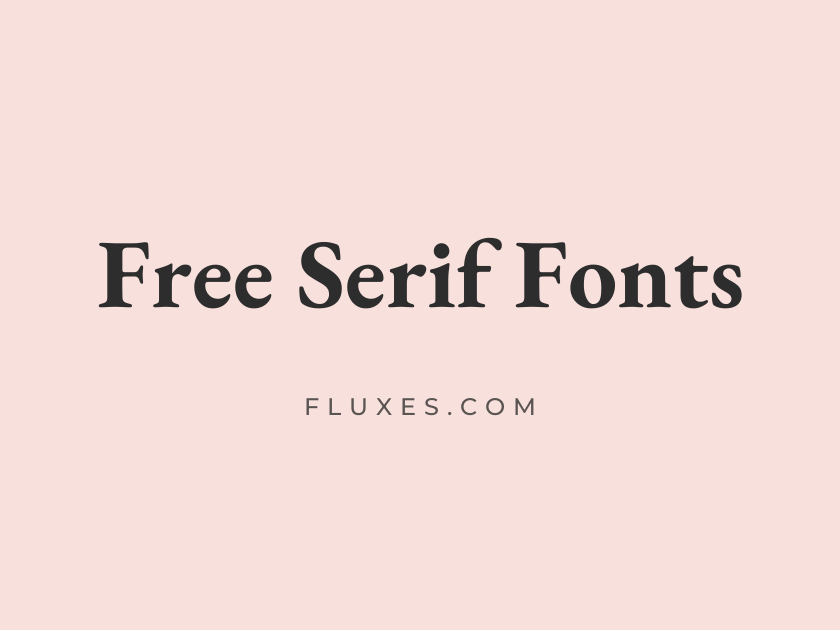
70 Best Free Serif Fonts
Serif type carries the weight of tradition, the credibility of a printed page, and, when chosen well, a distinct personality that a plain sans simply cannot deliver. Designers searching for free serif fonts often need more than a single workhorse text face; they need old-style book serifs for long-form reading, slab serifs for sturdy headlines, and a few high-contrast display faces for editorial drama. Every typeface here is free to download and use through Google Fonts, so you can pair a dependable body text serif with a striking headline serif without touching a licensing budget.
1. EB Garamond
Timeless letters set for the printed page
A faithful revival of Claude Garamond’s sixteenth-century punches, this is the font people mean when they ask for a free Garamond alternative. It reads beautifully in long paragraphs, has genuine italics rather than slanted romans, and feels equally at home in a novel or a wedding invitation.
2. Cormorant Garamond
Elegant script for refined invitations
Cormorant Garamond takes Garamond’s proportions and stretches them into something narrower, lighter, and more jewel-like. It is not a workhorse text face; it wants generous point sizes, so save it for pull quotes, titles, and anywhere delicacy matters more than density.
3. Crimson Pro
A quiet workhorse for academic writing
Modeled loosely on old-style book typefaces, Crimson Pro was built specifically for long-form reading on screen. Its wide variable weight range makes it a smart pick for editorial sites that need everything from a light byline to a bold pull quote from one family.
4. Lora
Contemporary warmth with calligraphic roots
Lora’s curves hint at pen calligraphy without ever tipping into decoration, which is why it has become a default choice for blogs and content-heavy sites. It pairs nicely with a geometric sans like Poppins for headings, keeping the body text warm while the titles stay crisp.
5. Source Serif 4
Reliable text type for editorial layouts
Adobe’s Source Serif was drawn as a companion to Source Sans, and it shows: the two share proportions and rhythm, so they slot together effortlessly in interfaces and documentation. On its own it is understated, dependable, and rarely the wrong answer for body copy.
6. Spectral
Designed for comfortable screen reading
Spectral was commissioned with screens in mind, so its x-height, spacing, and weight distribution all favor clarity on low-resolution displays. It carries a faint literary mood without asking for attention, which makes it a safe long-form choice for publishing platforms.
7. Vollkorn
Sturdy German serif for printed books
Vollkorn means “whole grain” in German, and the name fits: it is dense, textured, and built to survive small sizes and cheap paper. It has quietly become a favorite for self-published books and academic PDFs where legibility under imperfect printing conditions matters more than flair.
8. Alegreya
Expressive type inspired by literary texts
Alegreya was originally designed for long passages of literary text, and its slightly humanist, calligraphic rhythm gives paragraphs a sense of movement rather than rigidity. The companion Alegreya Sans makes it an easy family to build an entire editorial system around.
9. Bitter
Slab serif built for on-screen reading
Bitter blends slab-serif sturdiness with the comfort of a text face, making it readable at small sizes where many slabs turn muddy. It works well set dense, in captions, tables, or long-form articles that need a slightly firmer voice than a standard book serif.
10. PT Serif
Balanced letterforms for print and web
Commissioned for a Russian public type project, PT Serif was engineered for maximum legibility across print and digital, and it delivers on that brief without much fuss. It is a safe, slightly conservative choice when a project needs a serif that will not distract from the content.
11. Merriweather
Confident headlines with printed authority
Merriweather was specifically designed to be pleasant to read on glowing screens, with sturdy strokes and a slightly condensed width that holds up well in narrow columns. Its bold weight makes an assertive headline face, while the regular cut carries long articles without fatigue.
12. Noto Serif
Global coverage for multilingual publishing
Part of Google’s Noto project, this serif exists to cover as many of the world’s scripts as possible while staying visually consistent between them. Choose it for multilingual sites where a matching serif needs to work in Latin, Cyrillic, Greek, and beyond.
13. Libre Baskerville
Classic Baskerville optimized for the web
Libre Baskerville adjusts the historic Baskerville proportions with a taller x-height and tighter letterspacing so paragraphs stay legible at typical web sizes. It is one of the most-used free serif fonts for blogs precisely because it looks like a proper book font without a licensing fee.
14. Baskervville
Sharper revival for editorial elegance
Baskervville
Where Libre Baskerville softened the original for screens, Baskervville stays closer to the sharper, higher-contrast historic model. It suits print-style layouts, magazine features, and anywhere a more literary, slightly old-fashioned tone is welcome.
15. Domine
Sturdy serif made for blog headlines
Domine was built explicitly for setting headlines in web content, with heavier strokes than most text serifs so it holds its own next to a plain body font. It is a dependable pick for content sites that want a serif headline without venturing into display territory.
16. Gelasio
A free metric-compatible Georgia substitute
Gelasio
Gelasio was drawn to match Georgia’s metrics almost exactly, making it the closest free serif fonts alternative for anyone replacing that ubiquitous system font. Use it anywhere a brief calls for Georgia but the budget or license does not allow the original.
17. Literata
Refined type built for digital books
Literata
Originally developed for Google’s own ebook platform, Literata is tuned for extended reading across a huge weight and optical-size range. It has since grown into a favorite for editorial and publishing sites that need a serif capable of feeling equally at home at 14 pixels and 60.
18. Fraunces
Soft, wonky charm for modern branding
Fraunces mixes old-style warmth with a slightly wonky, almost hand-finished character that has made it a darling of contemporary branding and editorial design. Its optical-size axis lets the letterforms shift character between tiny text and oversized display, so a single family can do double duty as both body copy and a characterful headline face.
19. Frank Ruhl Libre
Hebrew-rooted serif with literary gravity
Adapted from a classic Hebrew typeface, Frank Ruhl Libre carries a scholarly, slightly severe gravity that suits essays, journals, and cultural publications. Its darker weights make surprisingly effective display type for book covers and editorial mastheads.
• Styles: 7 weights (Light to Black)
20. Cardo
Scholarly serif for classical typesetting
Built originally for classicists and biblical scholars, Cardo includes extensive support for Greek and Hebrew alongside a restrained, text-friendly Latin design. It is a natural choice for academic publishing, historical projects, or any site that needs a serious, understated reading face.
• Language support: Latin, Latin Extended, Gothic, Greek, Greek Extended, Hebrew, Old Italic, Runic
21. Gentium Plus
Linguistic precision meets graceful design
Gentium Plus
Gentium was designed by a linguist for accurate multilingual typesetting, and that heritage shows in its clean diacritics and broad script support. Beyond its technical strengths, it is simply a graceful, legible book serif worth considering for any text-heavy project.
22. Old Standard TT
Historic type for scientific publications
Modeled on early twentieth-century scholarly typefaces, Old Standard TT has an academic, slightly antique flavor that suits scientific papers, historical archives, and journals. It is not the most refined serif on this list, but that rougher character is exactly what gives it authenticity.
23. IBM Plex Serif
Corporate clarity with a human touch
IBM Plex Serif
Part of IBM’s open-source type system, Plex Serif was designed to feel neutral and professional while still carrying small idiosyncratic details that keep it from feeling generic. It pairs naturally with Plex Sans and Plex Mono for interface and documentation work that needs a coordinated serif option.
24. Neuton
Compact serif with strong readability
Neuton
Neuton was designed with unusually large lowercase letters relative to its point size, which keeps it legible even when space is tight. It suits mobile-first reading experiences where every extra pixel of clarity counts.
• Styles: 6 styles (5 weights plus italics)
25. Rasa
Gujarati-inspired serif for warm storytelling
Rasa
Rasa pairs a Latin serif with a matching Gujarati design, giving it a rounded, slightly informal warmth uncommon among text serifs. Its friendly curves make it a pleasant choice for narrative or lifestyle content that wants a serif without stiffness.
• Language support: Latin, Latin Extended, Gujarati, Vietnamese
26. Piazzolla
Argentine-inspired serif for cultural sites
Piazzolla
Named after composer Astor Piazzolla, this variable serif shifts fluidly between text and display optical sizes within one family. Its slightly theatrical character suits arts, music, and cultural publications looking for a serif with a bit of flair.
27. Petrona
Approachable serif for friendly editorial tone
Petrona
Petrona keeps its strokes rounded and its counters open, giving it a softer, more approachable feel than most book serifs. It works well for lifestyle blogs and personal sites that want warmth without leaning decorative.
28. Bree Serif
Friendly rounded serif for casual headlines
Bree Serif
Bree Serif takes the bouncy, rounded personality of its sans-serif sibling Bree and applies it to slab-like serif forms. It is best used sparingly, in headlines or short bursts of copy, since its playful character grows tiring across long paragraphs.
29. Playfair Display
Dramatic contrast for elegant headlines
Few free serif fonts deliver drama as reliably as Playfair Display, with its high stroke contrast and generous flourishes borrowed from eighteenth-century transitional typefaces. It is built for headlines and titles rather than body text, where its thin hairlines would disappear at small sizes, but paired with a plain sans for the body it instantly signals editorial sophistication.
30. Abril Fatface
Bold fashion-magazine style headlines
Abril Fatface is unapologetically heavy, with the kind of extreme contrast you would expect on a fashion magazine cover rather than a paragraph of text. Use it only at large sizes for titles, since its thin hairlines are the first thing to blur or vanish once the text shrinks.
31. Marcellus
Understated luxury for upscale branding
Marcellus has a restrained, slightly wide-set elegance that reads as quiet luxury rather than loud decoration. It shows up often in beauty, hospitality, and fashion branding where a serif needs to feel expensive without shouting.
32. Prata
Refined serif with a vintage editorial mood
Prata’s narrow proportions and delicate serifs give it a vintage, editorial mood reminiscent of old fashion plates. It is a display face through and through, best reserved for titles and short lines rather than paragraphs.
33. Cinzel
Roman inscriptions reimagined for branding
Drawing directly from the letterforms carved into ancient Roman monuments, Cinzel brings a classical, almost architectural gravity to any headline it touches. It works particularly well in all caps for logos, museum branding, or anything wanting a sense of permanence and history.
34. Yeseva One
Playful curves for boutique brand headlines
Yeseva One mixes traditional serif contrast with a slightly playful, hand-finished curve to its terminals, giving it charm without tipping into whimsy. It suits boutique branding, packaging, and headline type where a serif needs personality but not full-blown decoration.
35. Rozha One
Bold Devanagari-inspired display serif
Rozha One was designed with both Latin and Devanagari scripts in mind, and its chunky, high-contrast forms carry real presence at display sizes. It makes a striking poster or magazine cover face, particularly for South Asian or multicultural branding contexts.
36. Unna
Distinctive serif with generous curves
Unna
Unna’s chunky serifs and generous curves give it a slightly retro, storybook character that stands apart from more clinical text faces. It reads well in headlines and pull quotes where a bit of visual personality is welcome.
37. Bodoni Moda
High-contrast Bodoni for modern editorial
This modern variable revival of Bodoni brings back the razor-thin hairlines and dramatic stroke contrast that made the original a fashion-industry staple. It is a strong pick for anyone hunting free serif fonts as a Bodoni alternative for magazine-style headlines, though it needs generous size and spacing to keep those hairlines from disappearing.
38. DM Serif Display
Confident serif for bold headline statements
DM Serif Display has a warm, slightly rounded high-contrast structure that feels more approachable than a strict Didone while still reading as unmistakably editorial. It is designed exclusively for large sizes and short lines of headline text.
39. DM Serif Text
Companion serif built for body copy
DM Serif Text
The text companion to DM Serif Display tones down the contrast just enough to hold up in paragraphs, making the pair an easy, cohesive system for a single project. Use the display cut for titles and this one for everything underneath.
40. Italiana
Delicate serif for fashion-forward branding
Italiana is thin, tall, and unmistakably fashion-house in mood, evoking the kind of lettering found on perfume bottles and couture invitations. It only works at larger sizes and in short bursts, but in the right context it delivers instant sophistication.
41. Judson
Warm serif with an old-book feel
Judson
Judson carries a slightly worn, old-book warmth that suits vintage-inspired branding and editorial projects looking for character over neutrality. Its personality is subtle enough to still function reasonably well in body text.
42. Fenix
Distinctive serif for magazine-style layouts
Fenix
Fenix has unusually shaped serifs and open counters that give it a slightly unconventional, editorial personality without sacrificing legibility. It suits magazine layouts and feature articles that want type with a bit of visual interest in the body copy itself.
43. Roboto Slab
Geometric slab serif for tech branding
Built on the same skeleton as Google’s ubiquitous Roboto, Roboto Slab swaps in slab serifs while keeping the geometric, neutral character that made its sans sibling so widely adopted. It is a dependable choice when a project already uses Roboto and needs a serif that will match its rhythm exactly.
44. Zilla Slab
Versatile slab serif for editorial systems
Originally commissioned by Mozilla, Zilla Slab is unusually versatile for a slab, working comfortably as both a body text face and a headline font. Its wide weight range and true italics make it a strong candidate for building an entire type system around a single family.
45. Arvo
Geometric slab serif with even strokes
Arvo’s slab serifs sit on a geometric skeleton with almost mechanical evenness, giving it a clean, sturdy presence in headlines and UI elements alike. It has been a go-to free slab serif for web designers for years precisely because it is so reliable at a wide range of sizes.
46. Rokkitt
Rounded slab serif for approachable headlines
Rokkitt
Rokkitt softens its slab serifs with slightly rounded corners, giving it a friendlier feel than more rigid geometric slabs. It reads well in headlines and short blocks of text where a touch of informality is welcome.
47. Aleo
Contemporary slab serif for editorial interfaces
Aleo
Aleo was designed as a companion to a sans-serif family, so its slab forms are built for pairing as much as standing alone. It handles both headlines and body copy comfortably, making it useful for editorial interfaces that want one coherent voice.
48. Slabo 27px
Slab serif optimized for a single size
Slabo 27px
Slabo is unusual in that it was designed for one specific pixel size rather than as a flexible multi-size family, which is worth knowing before you reach for it. Used at or near its intended size, it delivers crisp, confident slab-serif text; scaled far beyond that, it loses some of its precision.
49. Crete Round
Soft rounded serif for gentle warmth
Crete Round
Crete Round trades sharp slab corners for soft, rounded terminals, giving it a gentler, more approachable tone than most slabs. It suits lifestyle and wellness branding that wants a serif with warmth rather than authority.
50. Alfa Slab One
Heavyweight slab for bold poster type
Alfa Slab One is enormous, dense, and built purely for impact, the kind of face you reach for on a poster or a landing-page headline that needs to be seen from across the room. It has no business in a paragraph of text, but as a single bold statement it is hard to beat.
51. Kreon
Restrained slab serif for professional reports
Kreon
Kreon keeps its slab details light and its proportions calm, making it a slab serif that behaves more like a conventional text face. It suits reports, documentation, and other professional contexts that want a hint of structure without visual weight.
52. Caudex
Solid serif with a printed, bookish feel
Caudex
Caudex has a slightly dense, printed quality that recalls older typesetting technology, giving it a bookish, tactile feel on screen. It works best in moderate doses, in headings or short passages rather than sprawling body text.
• Language support: Latin, Latin Extended, Greek, Greek Extended, Runic, Vietnamese
53. Vidaloka
Cinematic serif for vintage-inspired posters
Vidaloka
Vidaloka has a cinematic, slightly noir quality, with elegant curves that recall mid-century film posters and title cards. It is a display face suited to headlines, logotypes, and anywhere a vintage editorial mood is the goal.
54. Fanwood Text
Classic book serif for literary projects
Fanwood Text
Fanwood Text is a quiet, well-mannered book serif modeled on early twentieth-century printing types, with true italics that add to its literary credibility. It is a solid, unshowy choice for novels, essays, and any long-form reading experience.
55. Coustard
Chunky slab serif with hand-drawn character
Coustard
Coustard’s rounded, slightly irregular slab forms give it a hand-drawn, almost stamped quality that stands out from more mechanical slabs. It suits packaging, badges, and headline type looking for informal, crafted personality.
• Styles: 2 weights (Regular, Black)
56. Bevan
Sturdy slab serif for rustic branding
Bevan’s condensed, heavy slab forms have a rustic, Americana quality that suits craft branding, signage, and headline type wanting a rugged edge. It is not a font for paragraphs, but as a short, punchy headline face it has real character.
57. Rufina
Sharp serif with theatrical elegance
Rufina
Rufina’s sharp, high-contrast letterforms carry a theatrical elegance that suits arts organizations, theaters, and cultural branding. Its darker weight makes for striking display type even at moderate sizes.
58. Radley
Delicate serif with a handwritten softness
Radley
Radley’s thin strokes and slightly irregular curves give it a handwritten softness rarely found in serif display faces. It suits invitations, stationery, and headline type looking for intimacy over formality.
59. Tinos
Familiar serif for practical document design
Tinos
Tinos was built as a metric-compatible substitute for Times New Roman, which makes it an easy, invisible swap for anyone migrating documents or templates away from that system font. It will not turn heads, but that is exactly the point when the priority is familiarity and compatibility.
60. Newsreader
Editorial serif built for digital journalism
Newsreader was designed with online news reading in mind, with proportions tuned for comfortable long-form reading on a wide range of screens. Its restrained, slightly literary character makes it a strong choice for journalism sites, essays, and newsletters.
61. Besley
Sturdy serif for confident business branding
Besley
Besley has a slightly condensed, business-like sturdiness that suits corporate branding and editorial headlines wanting authority without excess ornament. Its heavier weights hold up particularly well in all-caps headline treatments.
62. Faustina
Balanced serif with quiet confidence
Faustina
Faustina keeps its proportions calm and its contrast moderate, giving it a dependable, understated confidence suited to reports, publishing, and editorial body text. It is not a font that draws attention to itself, which is precisely its value in long-form reading contexts.
63. Martel
Bold Indian-inspired serif for headlines
Martel
Martel was designed with both Latin and Devanagari in mind, and its sturdy, slightly rounded forms carry real weight in headlines. Its bolder cuts work particularly well for editorial mastheads and section titles.
• Styles: 7 weights (Extra-Light to Black)
64. Mate
Simple serif with unpretentious charm
Mate
Mate keeps its details minimal and its rhythm even, resulting in a serif with an unpretentious, almost folk-craft charm. It works comfortably as body text in personal blogs and small-business sites that want warmth without formality.
65. Cambo
Elegant serif for wedding stationery
Cambo
Cambo’s delicate curves and moderate contrast give it a romantic, old-world elegance well suited to wedding invitations and stationery. It reads clearly at smaller sizes too, which is not always true of fonts with this much delicacy.
66. Cantata One
Distinctive serif with quirky personality
Cantata One
Cantata One has unusually shaped serifs and slightly eccentric proportions that give headlines a distinctive, memorable silhouette. It is best used sparingly, since its quirks that charm in a title can become distracting across a full paragraph.
67. Sorts Mill Goudy
Classic Goudy revival for print-inspired design
Sorts Mill Goudy
Based on Frederic Goudy’s own typefaces, Sorts Mill Goudy carries the warmth and idiosyncrasy of early twentieth-century American type design. It is a lovely choice for book design, essays, and any project wanting a literary, distinctly non-corporate serif.
68. Cormorant
Airy display serif for poetic headlines
The Cormorant family’s base cut is even lighter and more delicate than its Garamond variant, built purely for display use in titles, poetry, and editorial pull quotes. Its airy, high-contrast letterforms need plenty of surrounding space to breathe.
69. Vesper Libre
Bold serif with Bengali-inspired warmth
Vesper Libre
Vesper Libre pairs a sturdy, slightly rounded Latin serif with a matching Bengali design, giving it a warm, humanist character uncommon among heavier display serifs. Its bolder weights make confident, readable headlines without tipping into harshness.
• Styles: 4 weights (Regular to Black)
70. Noticia Text
Newspaper-style serif for readable reporting
Noticia Text
Noticia Text was designed specifically for newspaper-style reading, with sturdy strokes that hold up under poor print conditions and small screens alike. It is a practical, no-nonsense choice for news sites and text-dense layouts.
Pairing and Using Free Serif Fonts on the Web
For long-form reading, favor a text-optimized serif like Lora, Literata, or Newsreader over a display face, since display serifs lose legibility fast at body-copy sizes.
Reserve high-contrast faces such as Playfair Display, Abril Fatface, or Bodoni Moda for headlines only, and set them at a large enough size that their hairlines stay crisp.
A serif headline over a plain sans body, or a serif body under a geometric sans headline, is a reliable formula if you are unsure where to start pairing.
Slab serifs like Zilla Slab, Roboto Slab, or Bitter can often do both jobs at once, which is useful when you want to limit a project to a single font family.
All of these are free to self-host or serve from Google Fonts, so test a few side by side in your own layout before committing, since the right serif always depends on context as much as taste.
Between the restrained book serifs, the dramatic high-contrast display faces, and the sturdy slabs, there is enough range here to typeset almost any project without spending a cent on licensing. Download a handful, set real content in each, and let the reading experience decide which one earns a permanent place in your type stack.